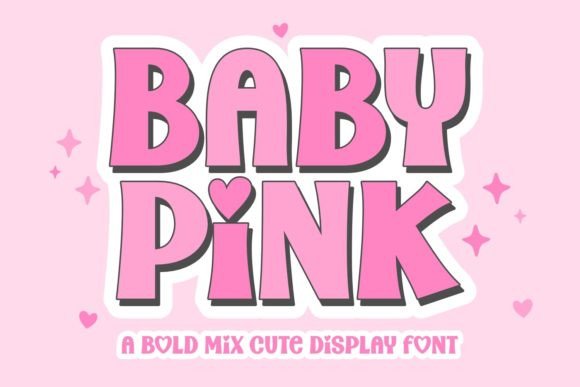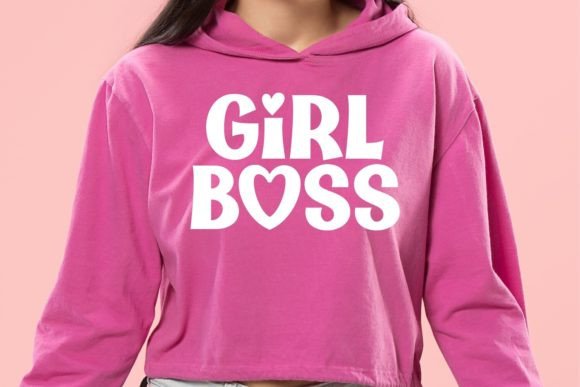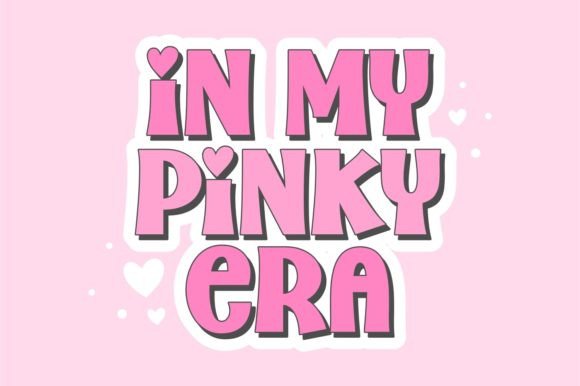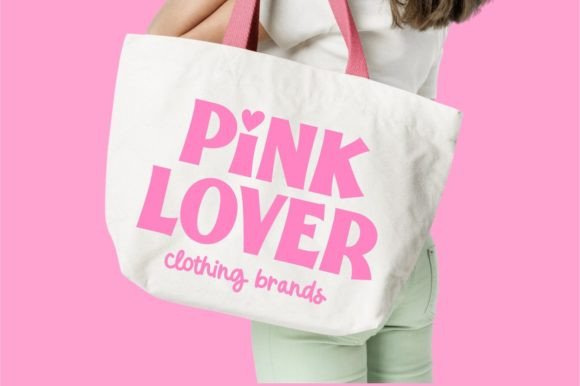
Baby Pink Font: A Bold & Cute Display Font for Cricut & DIY Projects
About the Baby Pink Font
Add a touch of class to your work with the Baby Pink Font, a truly exceptional typeface. Presenting Baby Pink, a bold font steeped in cuteness and playfulness. This light-hearted font effortlessly injects joy and uplifts the tone of your design, making it an ideal choice for varied mediums. Let its radiant charm enhance the appeal of your greeting cards or impart a fun quotient to your t-shirt designs. Baby Pink adds a touch of cheer to school logos and online businesses, and resonates vibrantly on social media. Celebrate holidays with a dash more zest using this font. Immerse your designs in the freshness and vibrancy Baby Pink offers, and let your creations narrate a tale that’s as delightful as a colorful design